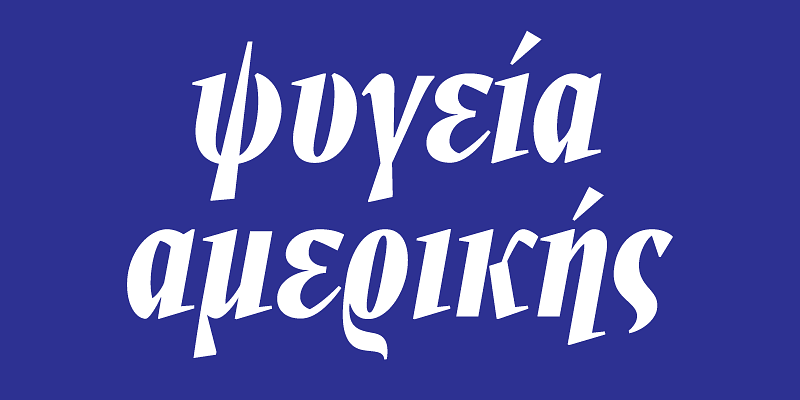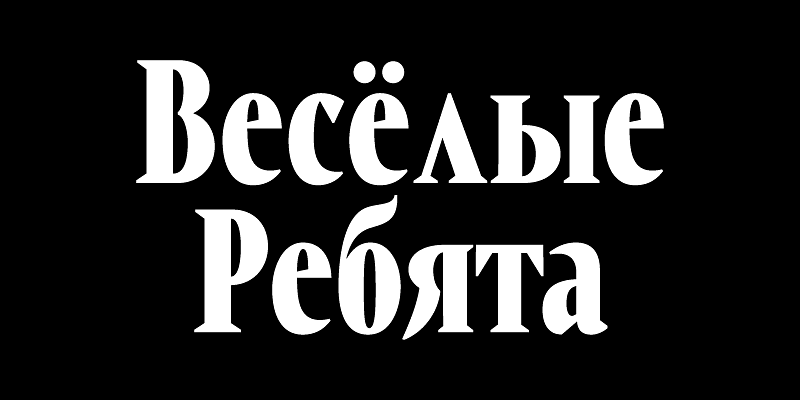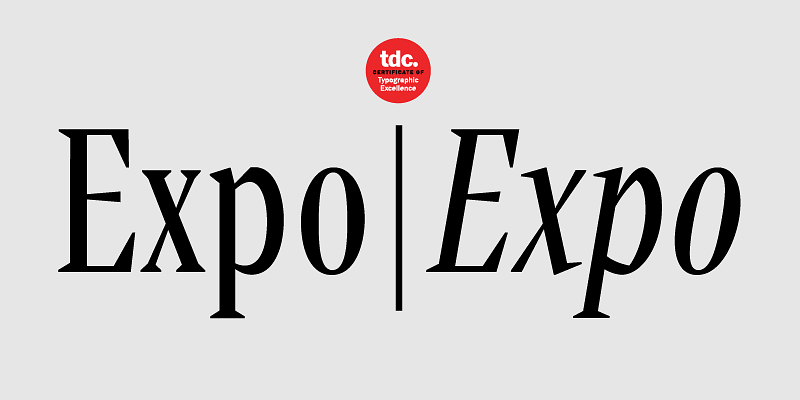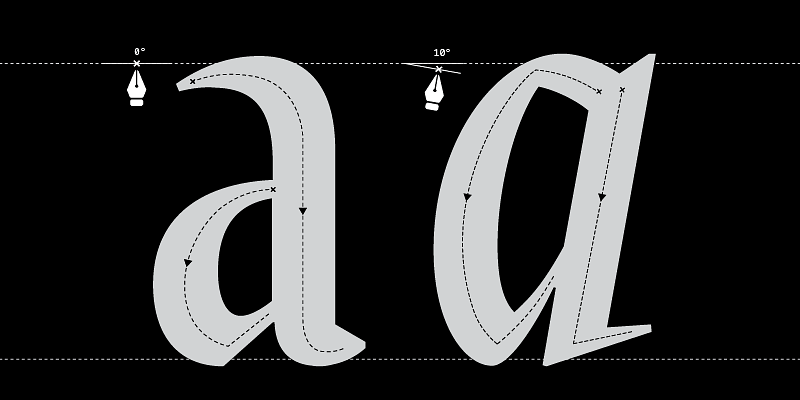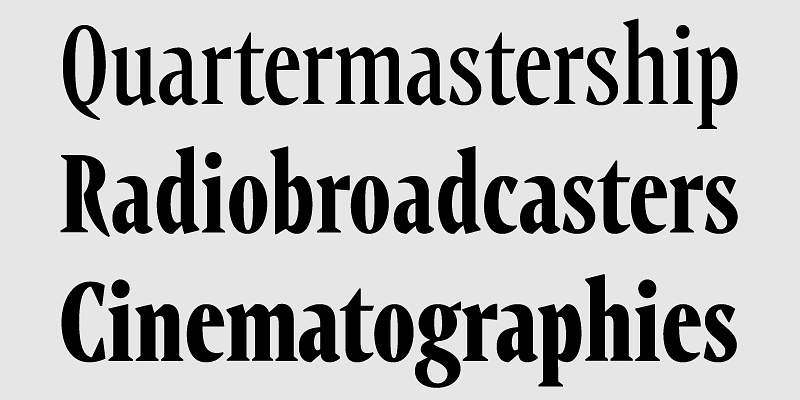
Eschewing ornamentation, PF Expo’s design is nobly rooted in simple, rational, and absolutely functional Roman forms. Circa 17th century the contrast between the thick and thin strokes of letters increased, oblique stressing transformed into upright stressing, round letterforms were compressed and bracketed serifs grew edgy and delicate. During that period and throughout the late 19th century, wood type manufacturers marketed design variations more quickly than type founders did, by devising a system to condense or expand type and creating secondary styles to bracketed serifs such as triangular shapes.
Expo takes its cues from several condensed typefaces of that period particularly Latin Condensed as well as mid-20th century designs such as Vendome Condensed, and conveys a sharp elegance that creates a cohesive family with solid and provocative quality. The typeface’s abundance of thoughtful details excels at display sizes bringing its extravagant nature into the limelight.
In particular, PF Expo’s carefully modeled serifs follow an artful logic of triangular symmetry, whilst at x-height, the slanted one-sided serifs in letters such as (n), (p), (r) blend effortlessly into the stems to foster a distinct identity. The abrupt cut at the joints -a visual trick that adds a certain flair to its type design, especially when used at large sizes- provides a unique functionality as it compensates for over-inking in lowercase. The type family’s narrow proportions offer an economy of space - a critical issue for headline use. In addition, the italic version alters dramatically the texture and rhythm with razor-sharp terminals that transform from dual-sided serifs to triangular upstrokes.
Expo provides advanced typographic features including alternate glyphs with its character set extended for pan-European Latin support as well as Greek and Cyrillic.
Exuding a strong, contemporary, and energetic personality, PF Expo’s modernized novelty is Parachute’s latest typographic installment to ensure an exemplary visual outcome.
It received a TDC Certificate of Typographic Excellence in 2023.